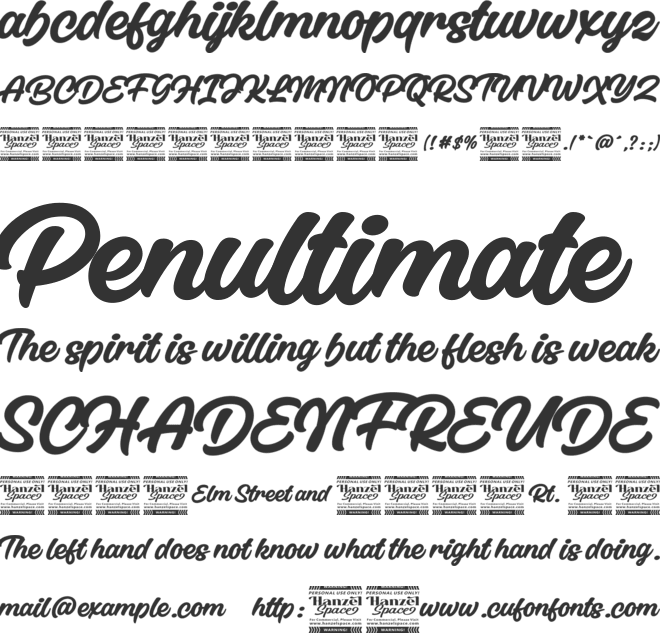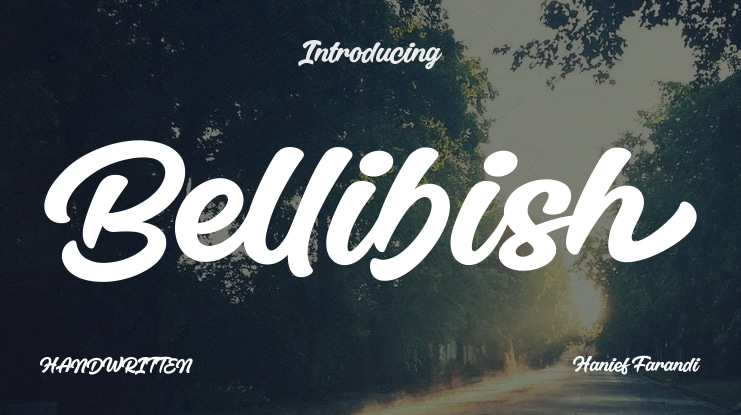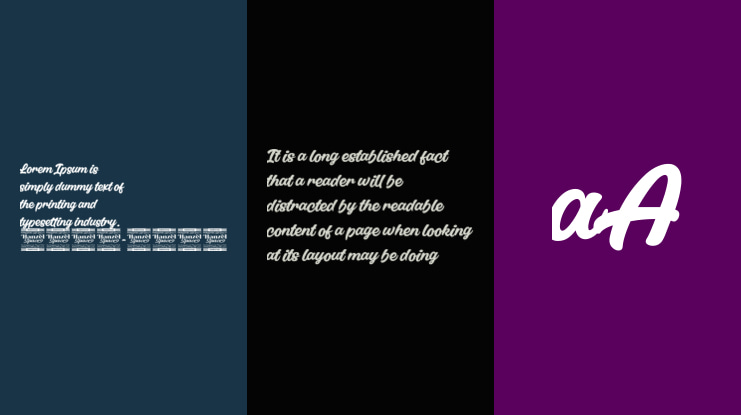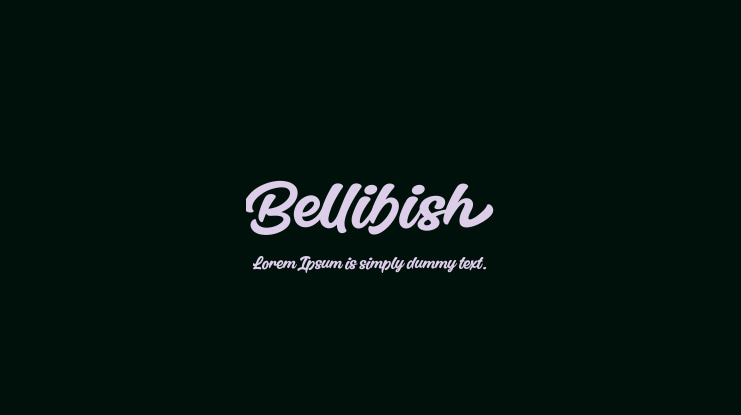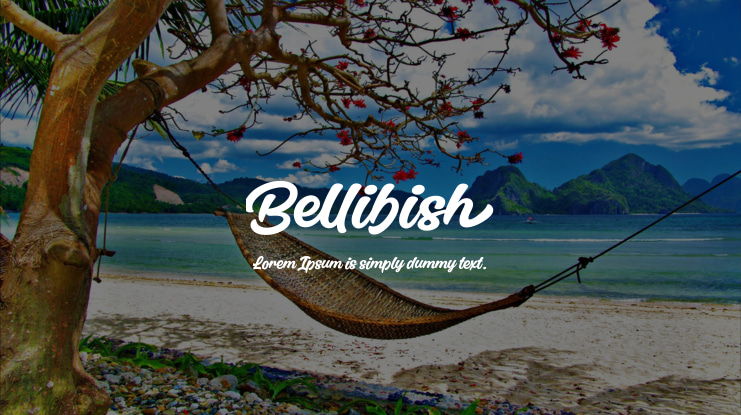
Hanief Farandi
Are you looking for a modern trandy script font? Do you want to create something that stands out and inspires
endless creativity, imagination and fun? What are you waiting for, we will provide the best choice for you.
Bellibish Calligraphy Font
This font was created to help you designing logotype or lettering style logo for your Brand or your clients, and you also can use it for designing all of the graphic stuff such as badge, sign, packaging, headline, title, T-shirt/apparel,bPoster, etc.
Bellibish was designed for personal characters such as strong, confidence, dynamic, readable, Energic, dynamic, etc.
– Full Set of standard alphabet and punctuation
– Multilingual Characters (ÁÂÄÀÅÃÆÇÐÉÊËÈÍÎÏÌÑÓÔÖÒØÕÚÛÜÙẂŴẄẀÝŶŸỲ áâäàåãæçðéêëèíîïìñóôöòøõœúûüùẃŵẅẁýŷÿỳ€£¥)